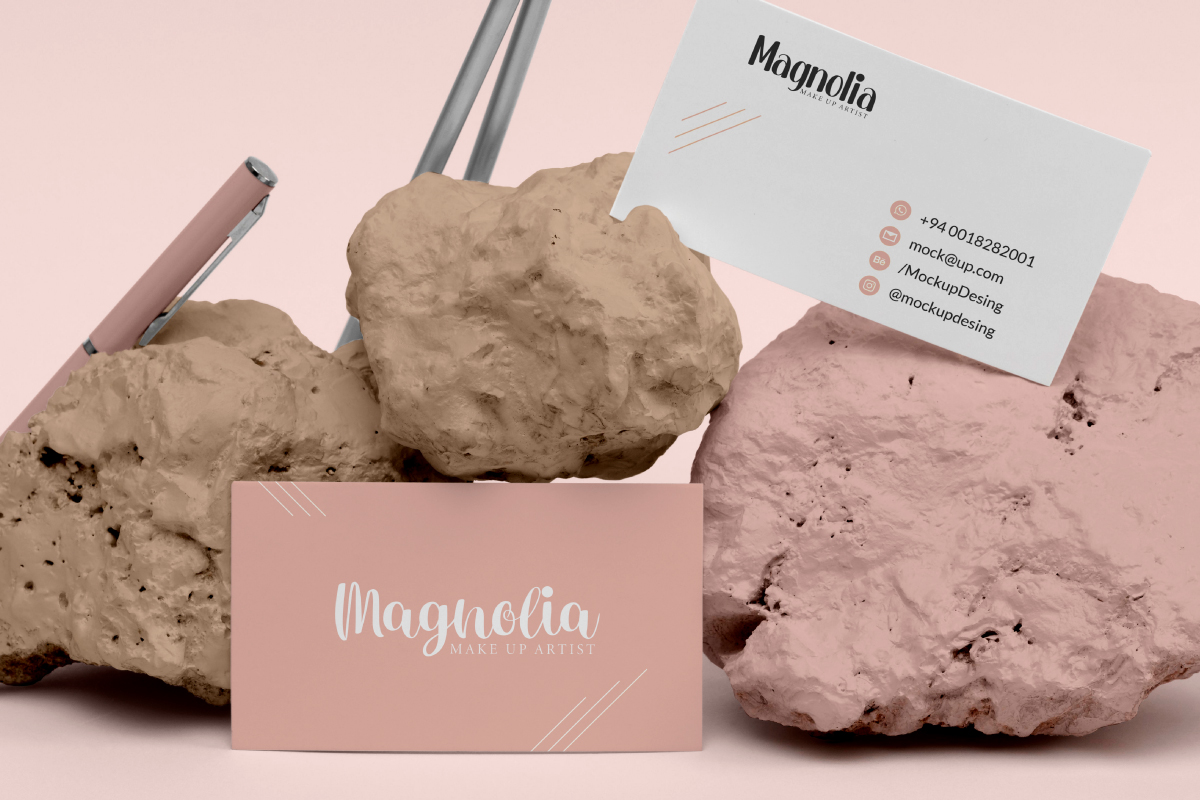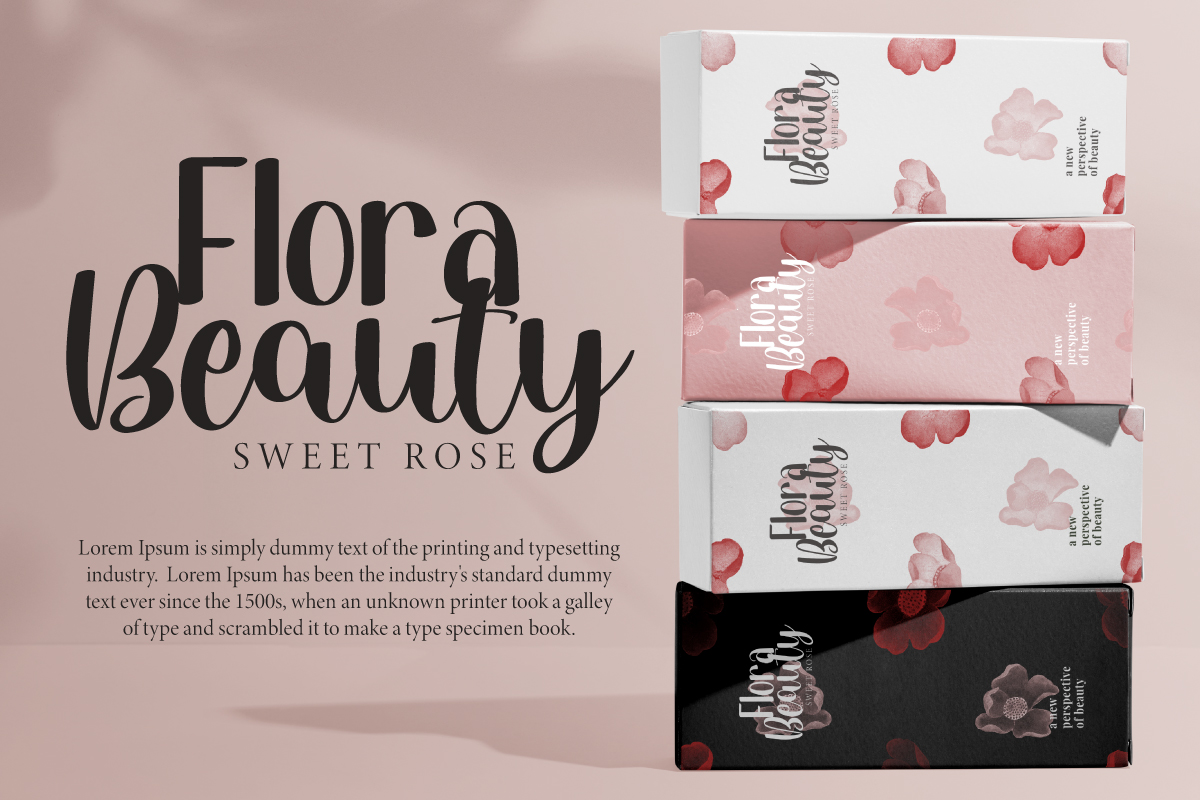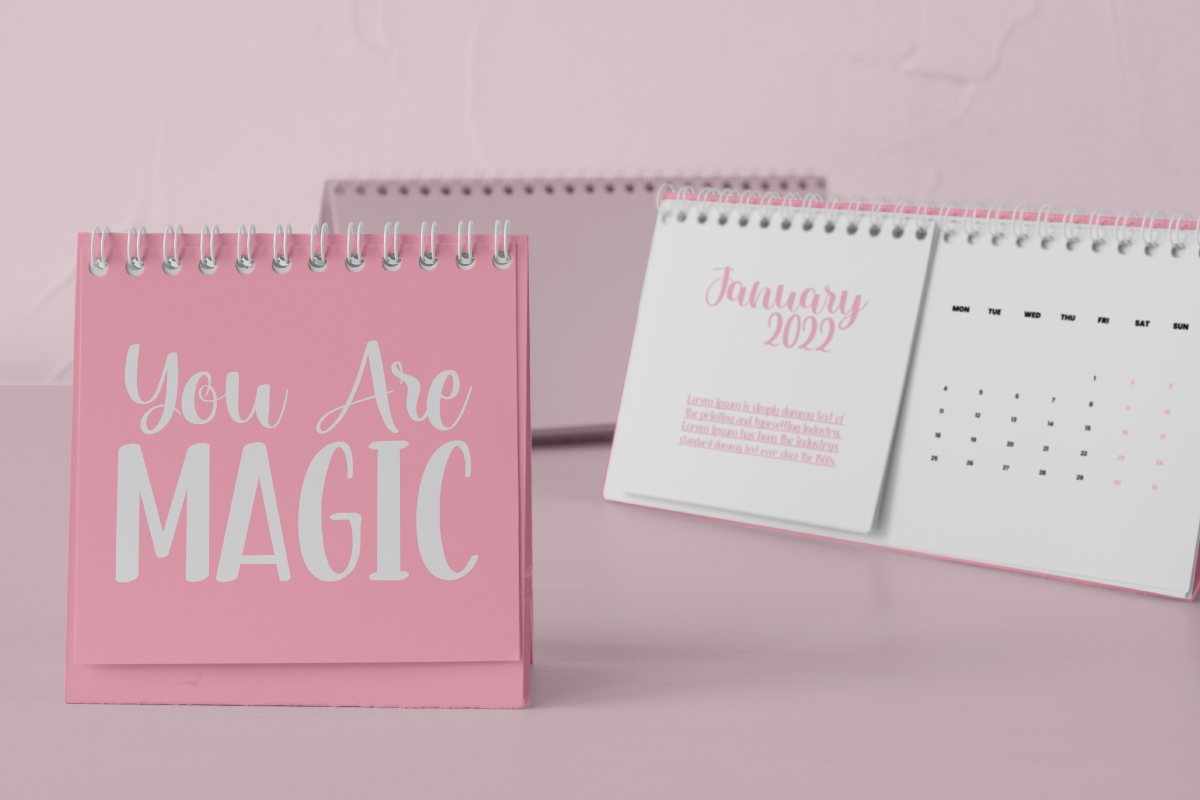
Pretty Good Script Font
This is a Font Duo with two cute styles : Regular and Calligraphic Script font. Both fonts can bring uniqueness and casual handwriting feels to your projects. This fun new font duo will be perfect for creating product designs, quotes, brands, crafting, birthday invitations, wedding or just adding a handwritten touch to any projects!